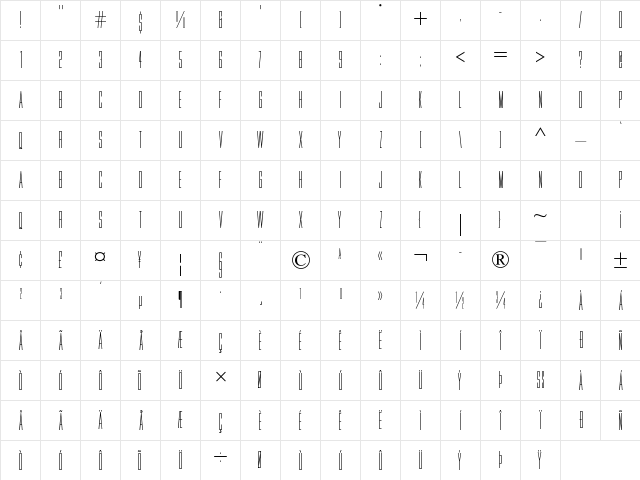
Movie Letters Regular
Design Context for Movie Letters Typeface
Movie Letters is a composed and adaptable typeface that performs quietly and consistently across a wide range of design contexts.